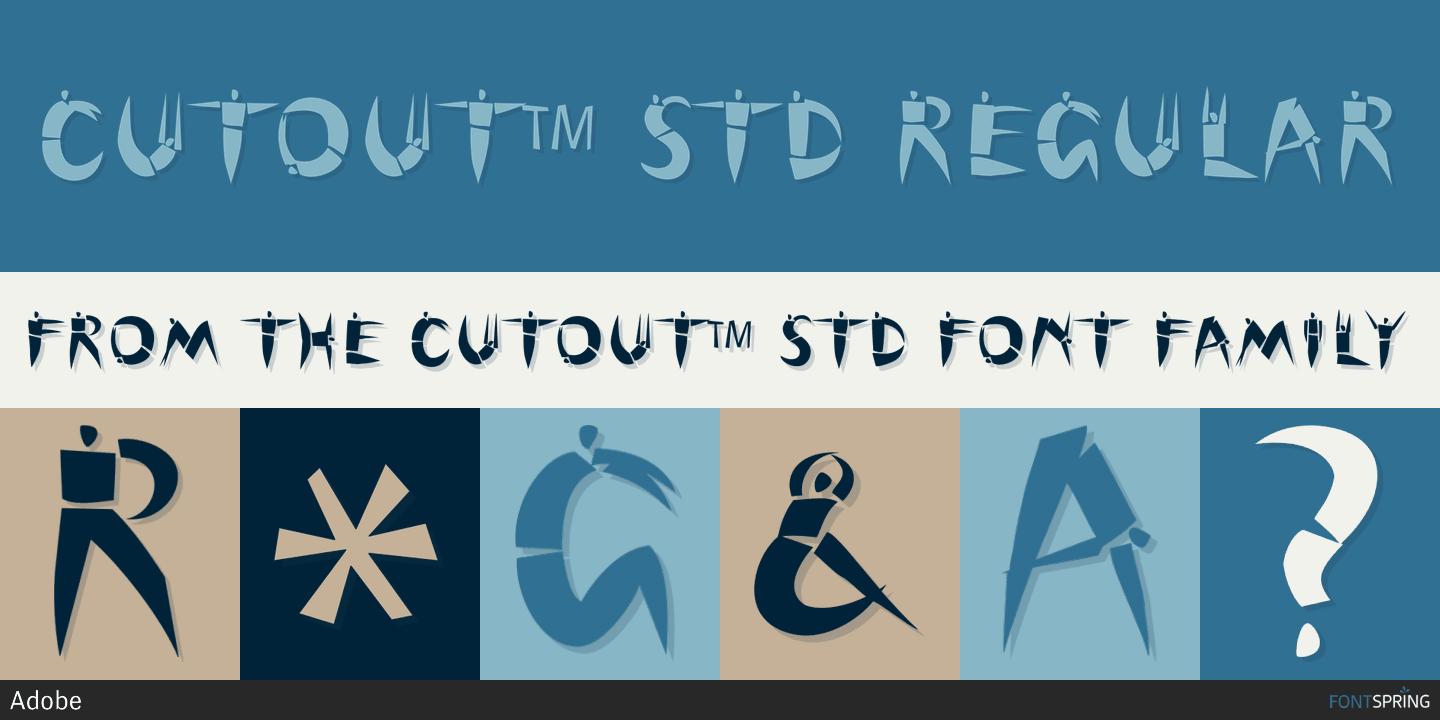
Cutout™ Std is a novelty font published by Adobe.
Matisse’s paper cutouts inspired Gail Blumberg, Adobe art director, to create a typeface of figures. Her biggest challenge: keeping each Cutout design in scale. “It’s not easy to make a standing figure, like ‘Y,’ to be the same size as a curled up figure, like ‘G,’” Gail says.